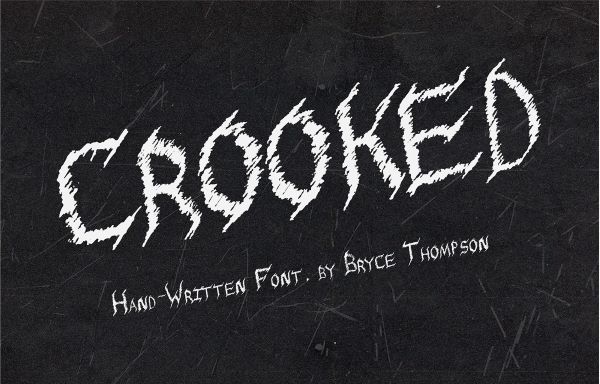
Crooked Font
Crooked by Bryce Thompson is a freaky font that lives up to its name in the most satisfying typographic sense — letterforms that feel deliberately misaligned, irregular in a way that reads as deeply unsettling rather than carelessly executed. The darkness here is not ornamental; it is structural. Drawing from the gothic tradition of heavy, angular letterform construction while introducing the kind of irregular, hand-crafted distortion that gives the type its particular creepy character, Crooked finds the space between blackletter severity and something more personal and strange. Free for personal use.